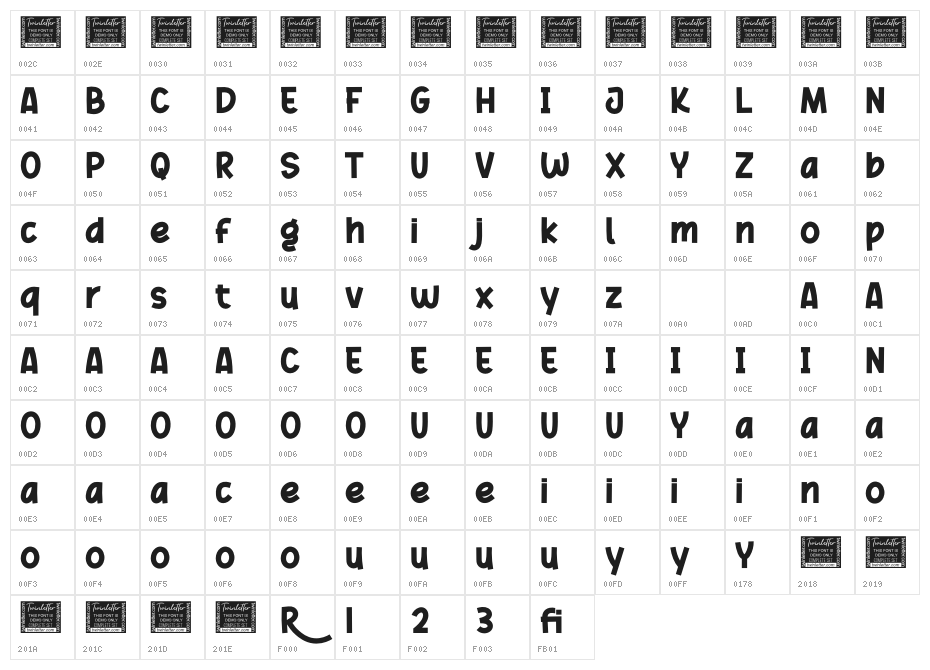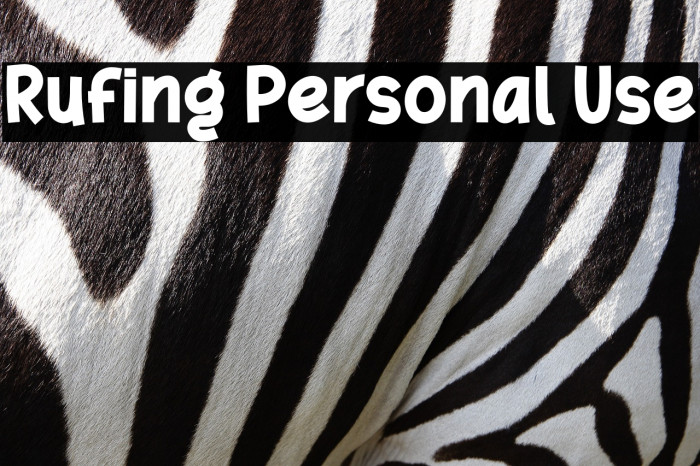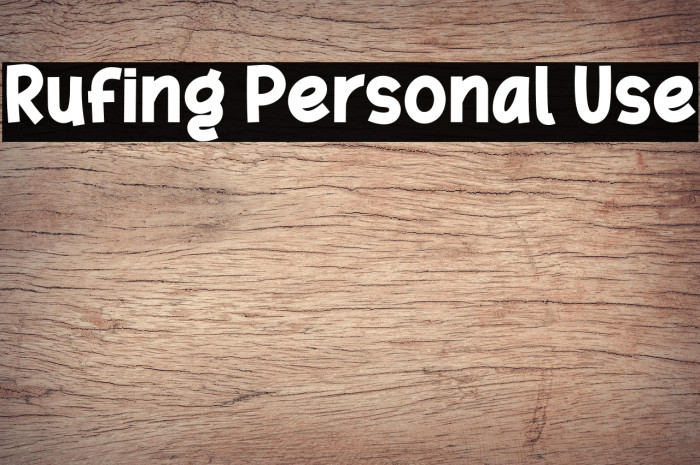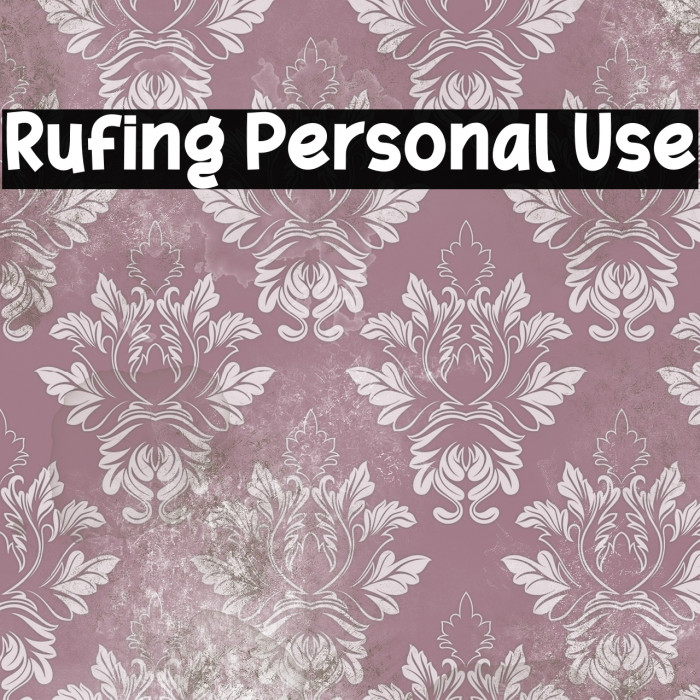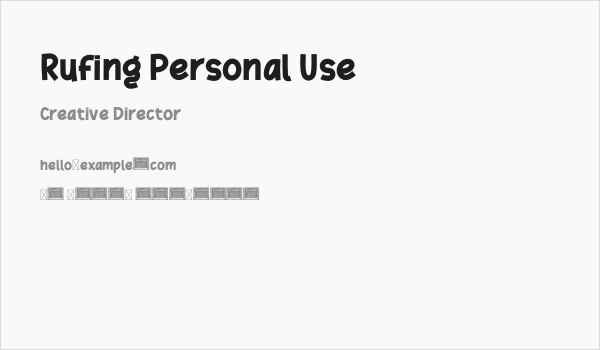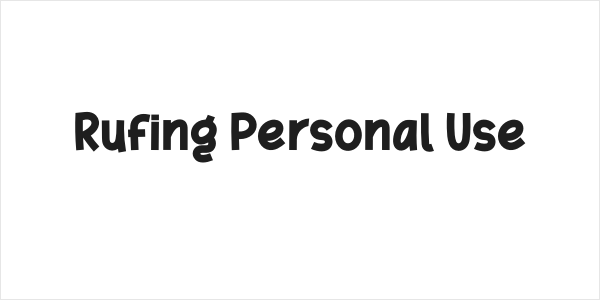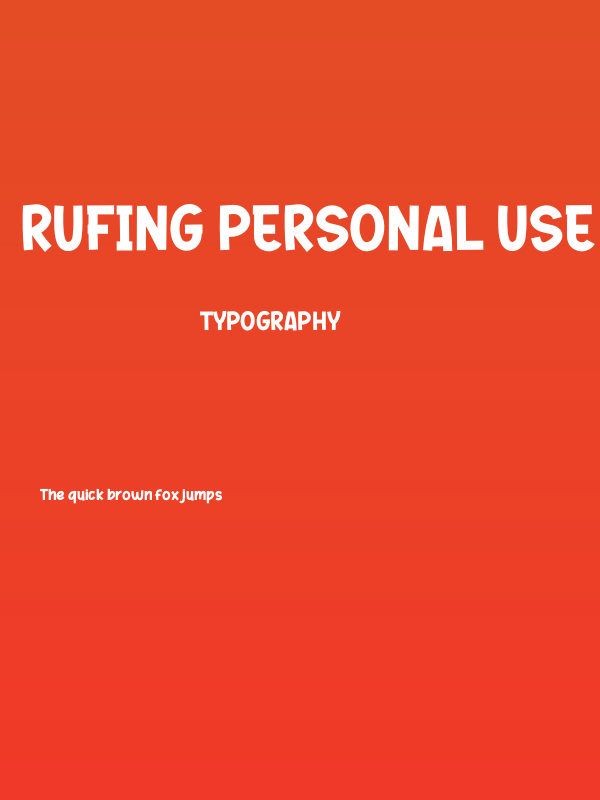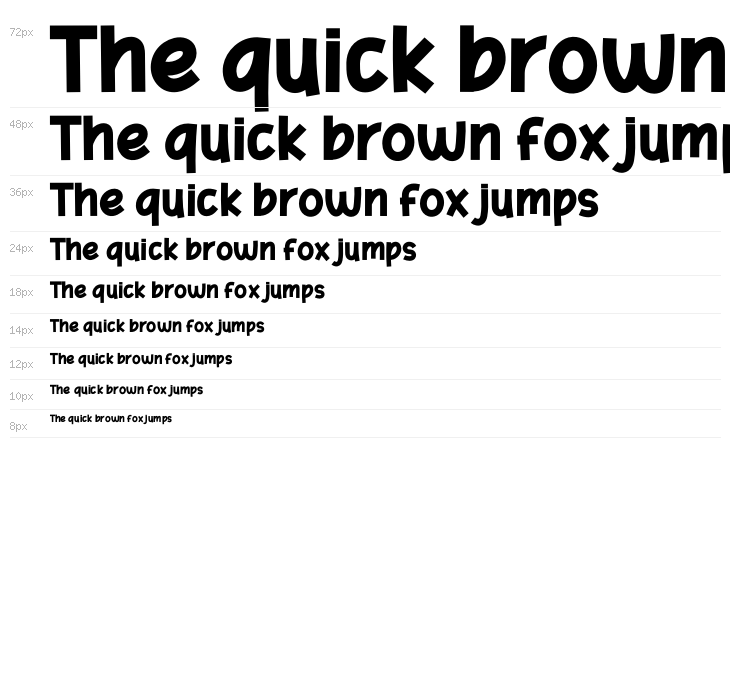
Rufing Personal Use Font
Rufing Personal Use Description
This font features a bold and playful style with a strong presence. The characters are slightly rounded, giving them a friendly and approachable appearance. The uppercase and lowercase letters maintain a consistent weight, contributing to a cohesive look. The font's design is modern with a touch of whimsy, making it suitable for creative projects. The spacing between characters is normal, ensuring readability while maintaining its unique style. The font's boldness and distinct character shapes make it ideal for attention-grabbing designs.
| Overall Style | Modern, Whimsical |
| Proposed Projects | Ideal for children's books, playful branding, posters, and creative advertising. |